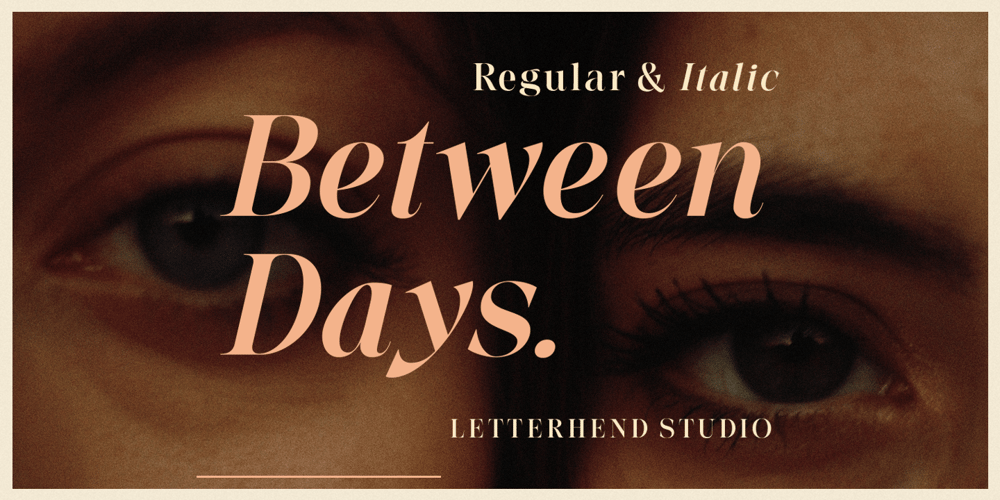
Between Days Font Family was designed by Hendry Juanda and published by Letterhend. Between Days contains 2 styles and family package options. Introducing, Between Days, A sophisticated serif with high contrast. This typeface has been made carefully to make sure its premium quality and luxury feel. Very suitable for logo, headline, tittle, and the other various formal forms such as invitations, labels, logos, magazines, books, greeting / wedding cards, packaging, fashion, make up, stationery, novels, labels or any type of advertising purpose.Features : numbers and punctuation multilingual ligatures alternates PUA encoded We highly recommend using a program that supports OpenType features and Glyphs panels like many of Adobe apps and Corel Draw, so you can see and access all Glyph variations.